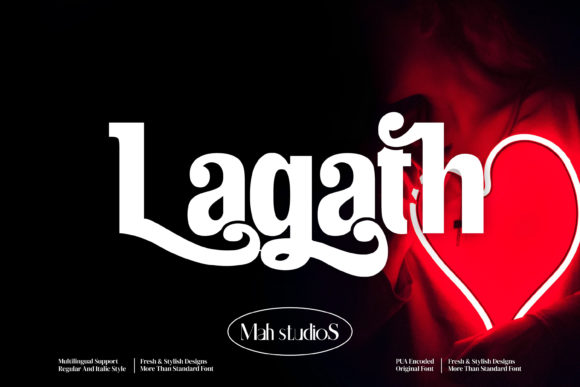
Dive into the realm of sophistication and elegance with Lagath Font, a captivating slab serif font crafted by the talented hands of mahstudios. This font family exudes a timeless charm that will leave an indelible mark on your creative projects, transforming them into masterpieces that speak volumes.
Lagath Font is the epitome of versatility, seamlessly adapting to a wide spectrum of design endeavors. Its strong and distinctive character shines through, whether you're crafting logos that demand attention, branding projects that exude professionalism, or homeware designs that radiate warmth and personality.
Step into a world of limitless possibilities, where Lagath Font becomes your trusted companion in creating homeware designs that captivate the senses. Let your imagination run wild as you design mugs adorned with inspiring quotes, posters that ignite conversations, shopping bags that turn heads, and t-shirts that make a statement.
With Lagath Font as your creative ally, you'll effortlessly produce book covers that exude an aura of knowledge and wisdom, name cards that leave a lasting impression, invitation cards that promise unforgettable celebrations, and greeting cards that convey heartfelt sentiments.
Whether you're a seasoned designer or just starting your creative journey, Lagath Font is the perfect addition to your font collection. Its versatility and timeless appeal make it an indispensable tool for creating designs that resonate with your audience, leaving them spellbound and eager for more.